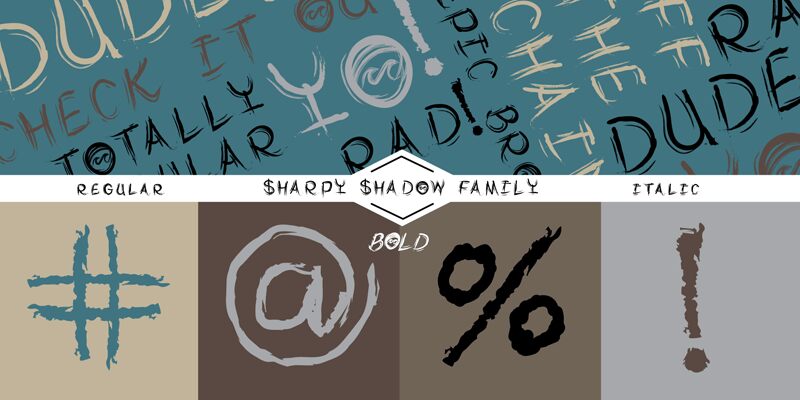
Sharpy Shadow Bold
Sharpy Shadow Bold font by McClymonds Graphic Design is a stylish, yet edgy handmade font that seeks to display roughness. The handwritten marker-styled font has a sketchy and unique personality that makes it different from the more mainstream script fonts. A rebellious tone can be felt across each word where the grungy and distressed vibe shouts instead of whispers.
The use of this font is optimal within street wear fashion design, alternative sports branding and magazines, posters, logos, marketing projects among others! This free script typeface takes handwriting to new heights in terms of legibility without sacrificing uniqueness.